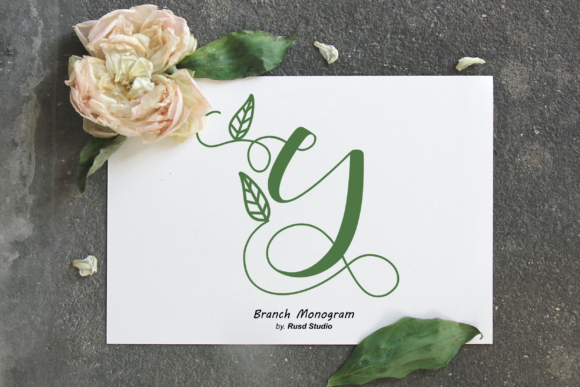
The Perfect Font for Your Crafty Masterpiece
Have you ever been working on a project, pouring your heart and soul into the details, when suddenly, everything falls into place? The colors match, the textures blend, and the words flow effortlessly onto the page? That’s the magic of creating, and it’s exactly what the Branch Monogram Font is designed to evoke.
This elegant and dainty handwritten font features sweet and delicate swashes that will add a touch of whimsy to any project. Whether you’re crafting letterheads, titles, or stationery, the Branch Monogram Font is the perfect tool to help you bring your vision to life. Its original look and feel make it a valuable asset for designers looking to add a unique touch to their work.
With its versatility and charm, the Branch Monogram Font is sure to become a go-to choice for crafty designers and enthusiasts alike.
Branch Monogram Font Key Features
- Font Family: Branch Monogram Font is a unique, hand-drawn monogram font that can be used for personal or commercial projects.
- Unique Characteristics: Branch Monogram Font features intricate, hand-drawn details and unique letterforms that set it apart from other monogram fonts.
- Style Variations: The font includes various style variations, such as bold, italic, and regular, allowing designers to create a range of visual effects.
Branch Monogram Font Review
Overall, I’m quite impressed with the Branch Monogram Font. It has a unique, hand-drawn feel that can add a touch of elegance to any design project. ✨ The font’s varied line weights and subtle flourishes make it perfect for creating custom monograms, logos, and other bespoke designs.
- ✨ Unique, hand-drawn feel that adds a touch of elegance to designs
- ✨ Versatile line weights and subtle flourishes make it perfect for custom designs
- ✨ Great for creating monograms, logos, and other bespoke designs
However, there are a few limitations to consider. ✠ The font may not be suitable for large blocks of text, as the irregularities in the letterforms can make it difficult to read. Additionally, the font’s design may not be to everyone’s taste, so it’s essential to test it in different contexts before committing to a design.
Overall, I’d recommend the Branch Monogram Font for designers who want to add a touch of sophistication and uniqueness to their projects. While it may have some limitations, its strengths make it a valuable addition to any design library.
- ⚠️ May not be suitable for large blocks of text due to irregularities in letterforms
- ⚠️ May not appeal to designers with a more minimalist aesthetic
Tips for Getting the Most Out of Branch Monogram Font
Use Branch Monogram Font to create custom logos, letterheads, and business cards.
Experiment with different font sizes and colors to achieve a unique look.
Combine Branch Monogram Font with other design elements to create a cohesive brand identity.
Use Branch Monogram Font for:
Custom logos and branding
Business cards and letterheads
Personalized gifts and decorations
Alternatives to Branch Monogram Font
Great Vibes Font is a beautiful, elegant script font that’s perfect for adding a touch of sophistication to your designs. It’s ideal for use in titles, headings, and quotes where you want to convey a sense of luxury and refinement. When to use: Fashion, luxury, and high-end brands. How it compares to Branch Monogram Font: Great Vibes Font is more formal and elegant, while Branch Monogram Font is more playful and whimsical.
Pacifico Font is a modern, cursive font that’s perfect for creating a relaxed and friendly atmosphere in your designs. It’s ideal for use in titles, headings, and body text where you want to convey a sense of approachability and warmth. When to use: Beach, outdoor, and wellness brands. How it compares to Branch Monogram Font: Pacifico Font is more laid-back and casual, while Branch Monogram Font is more playful and energetic.